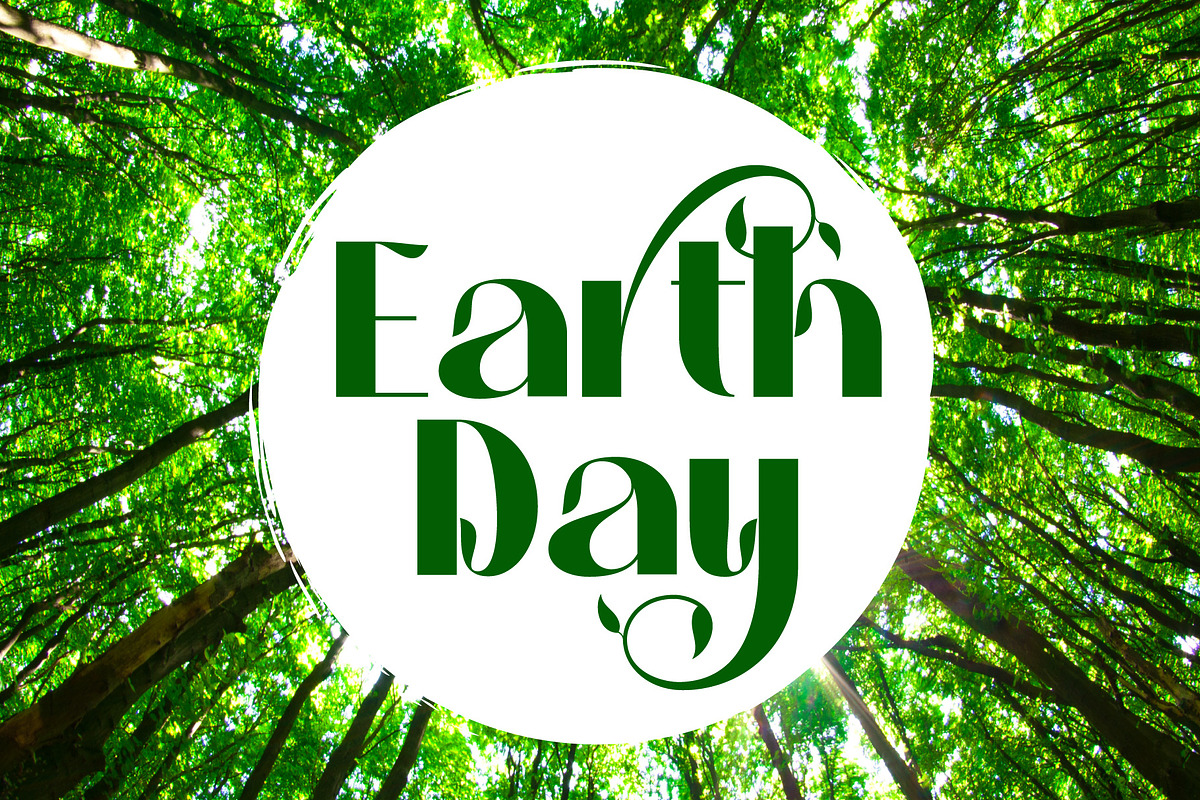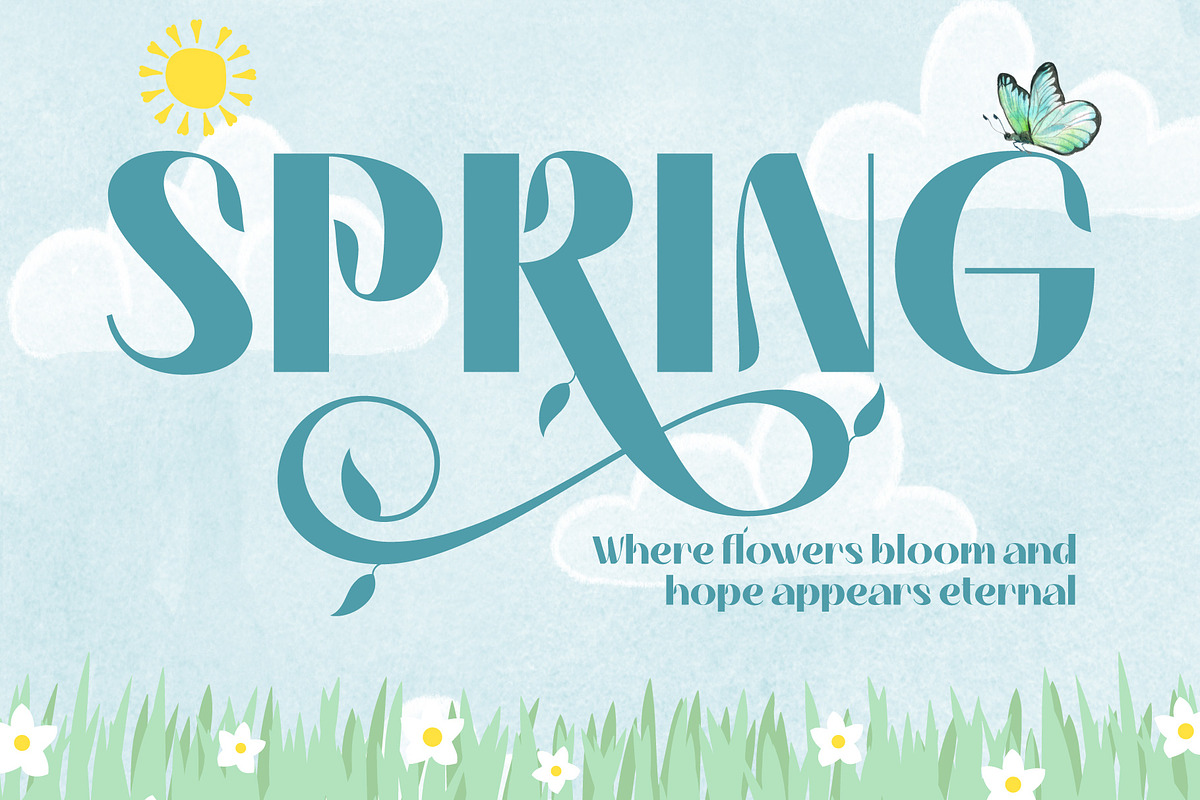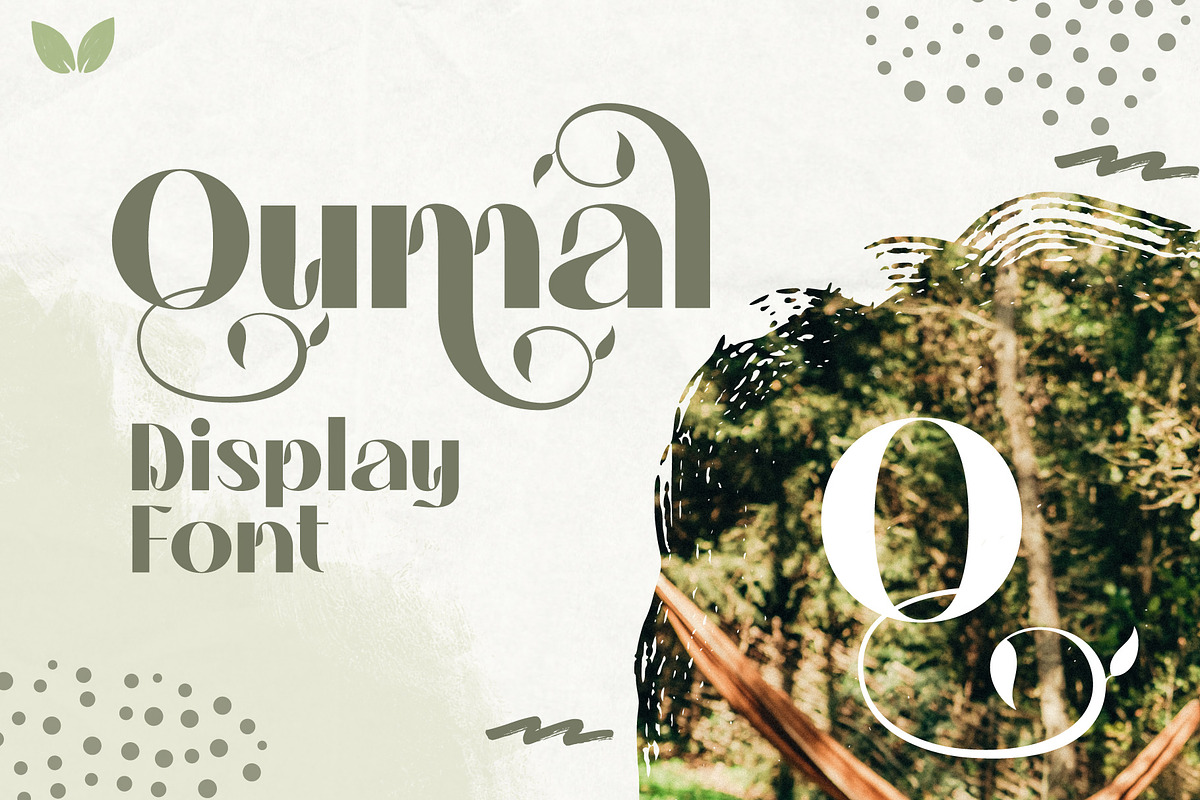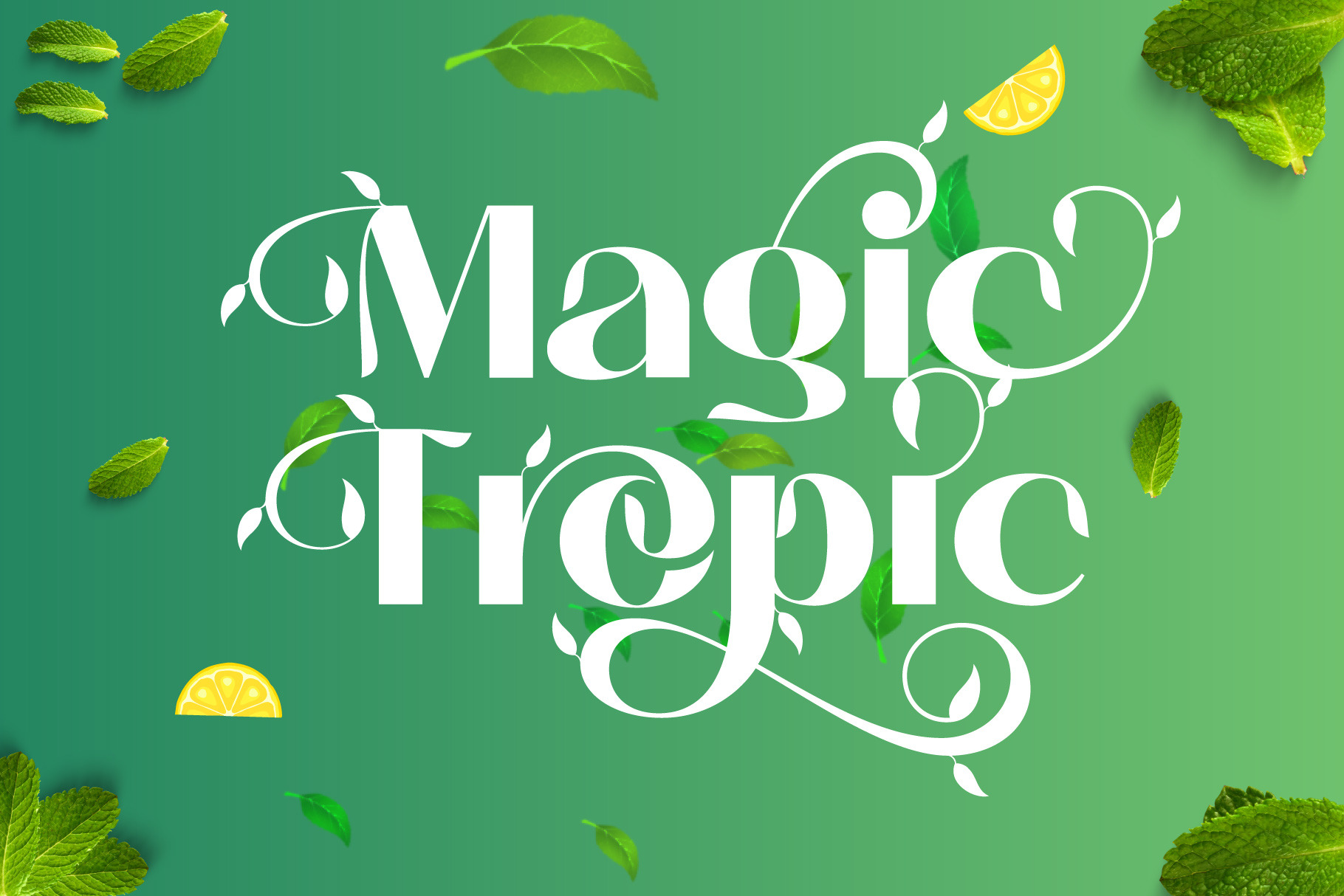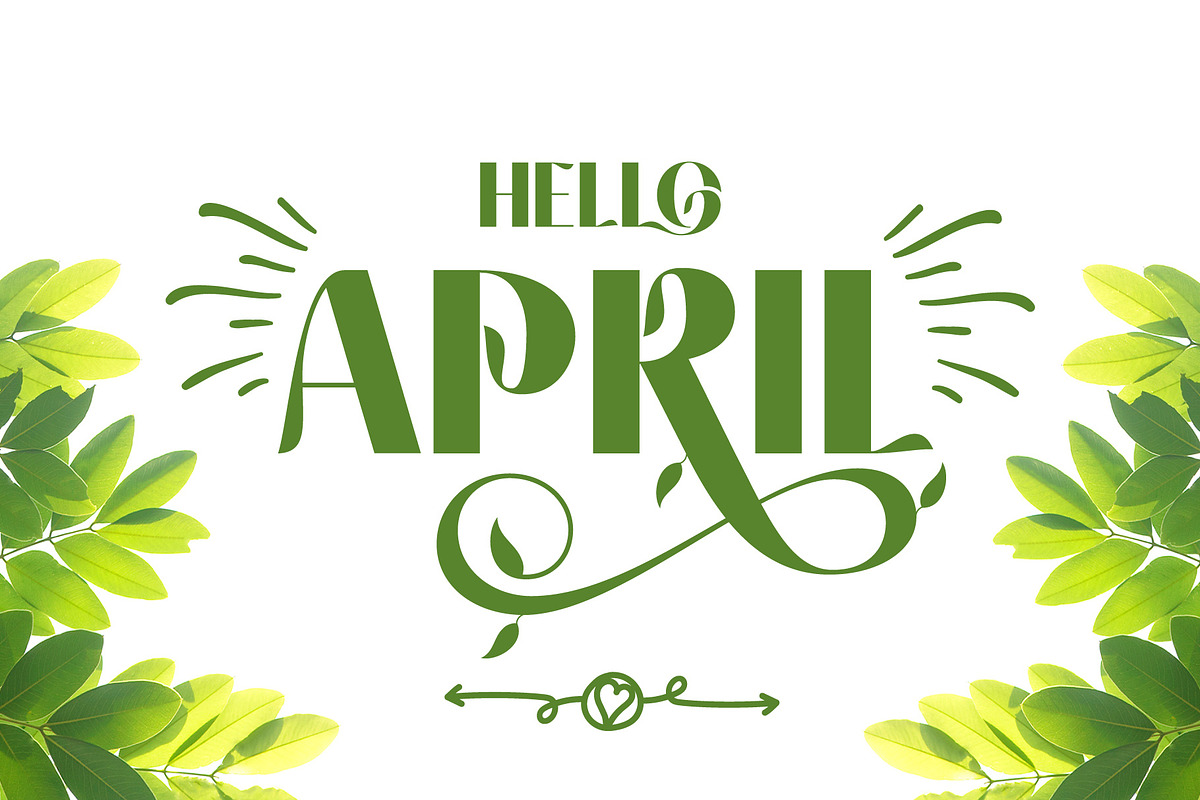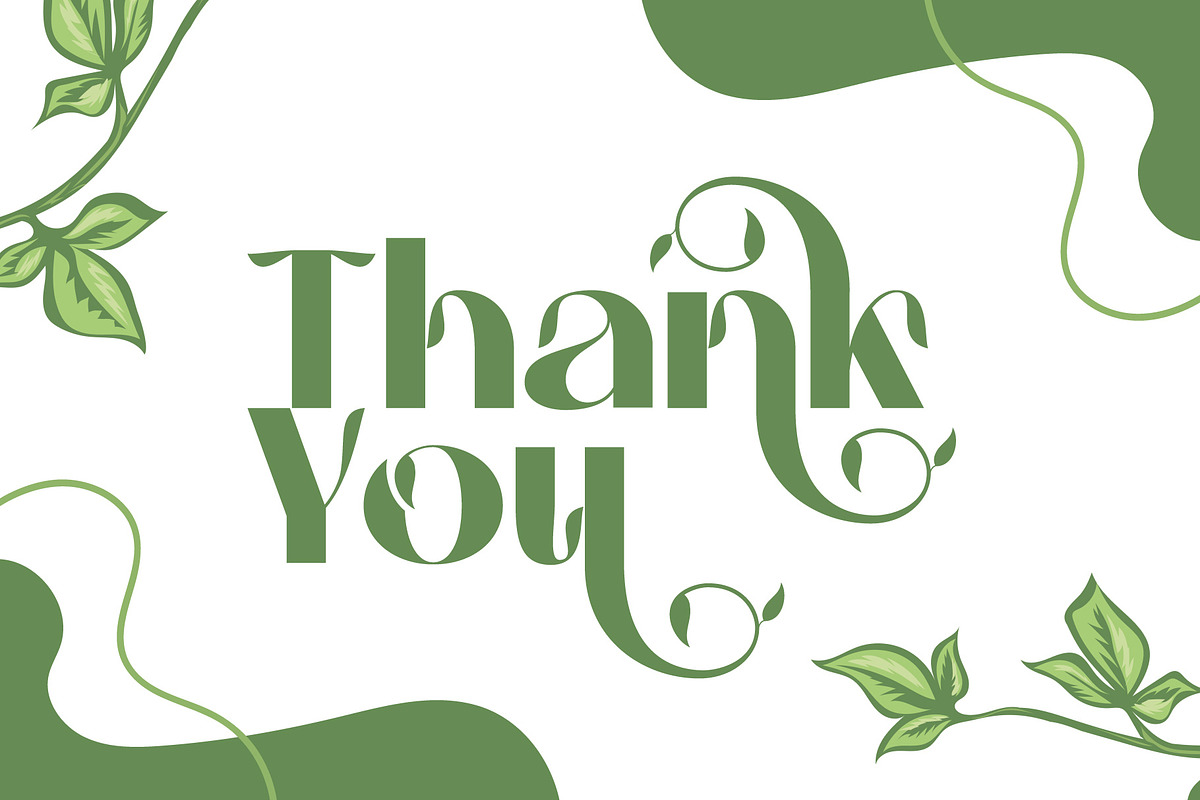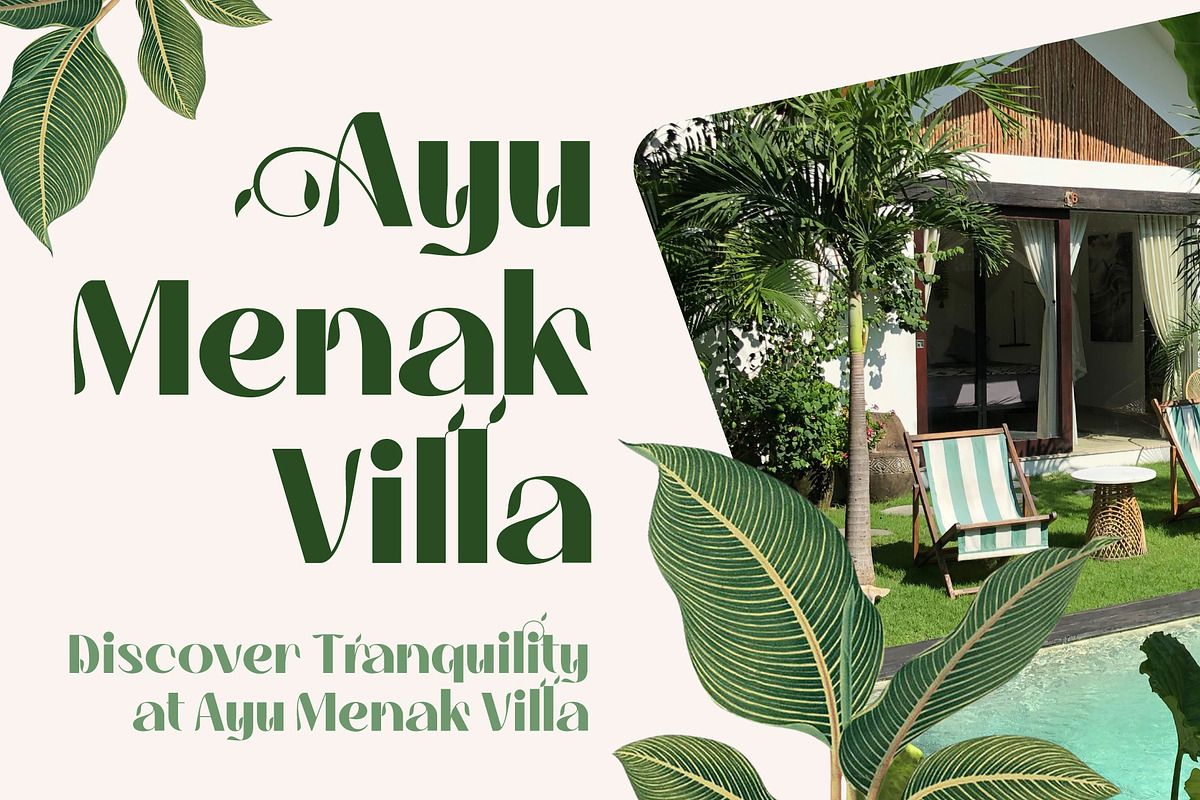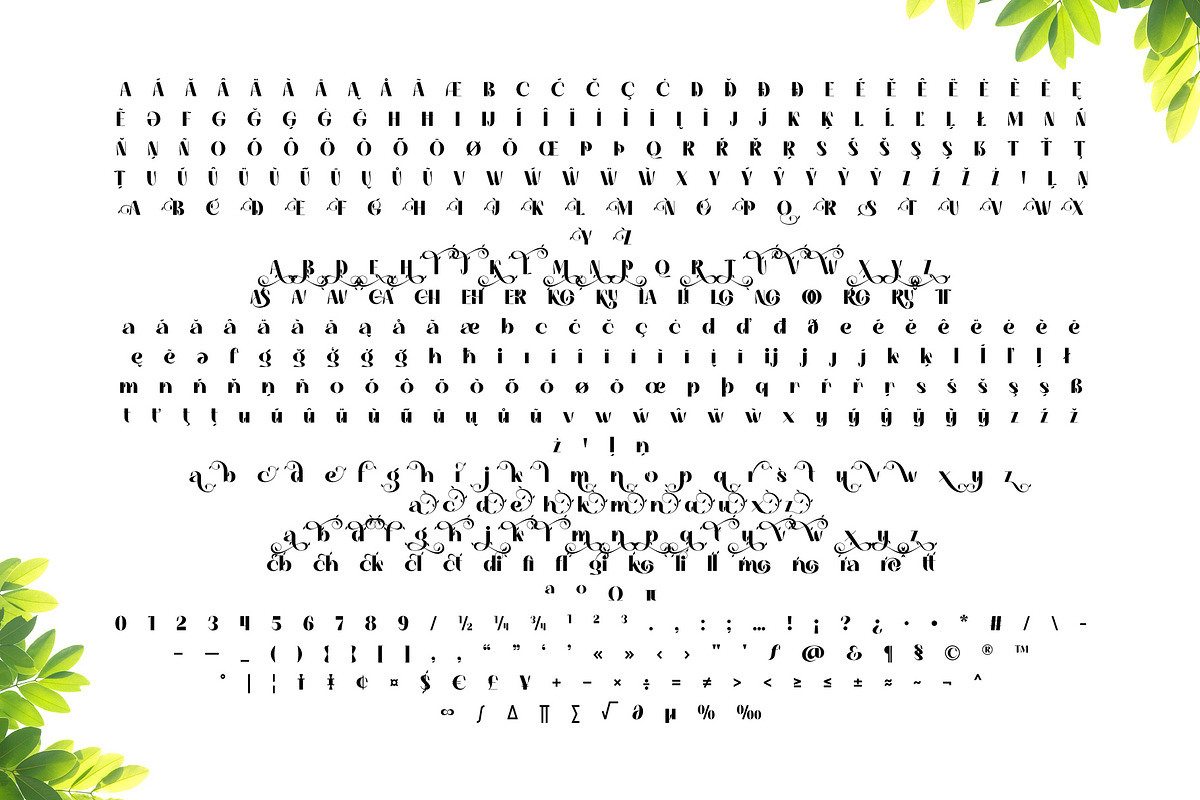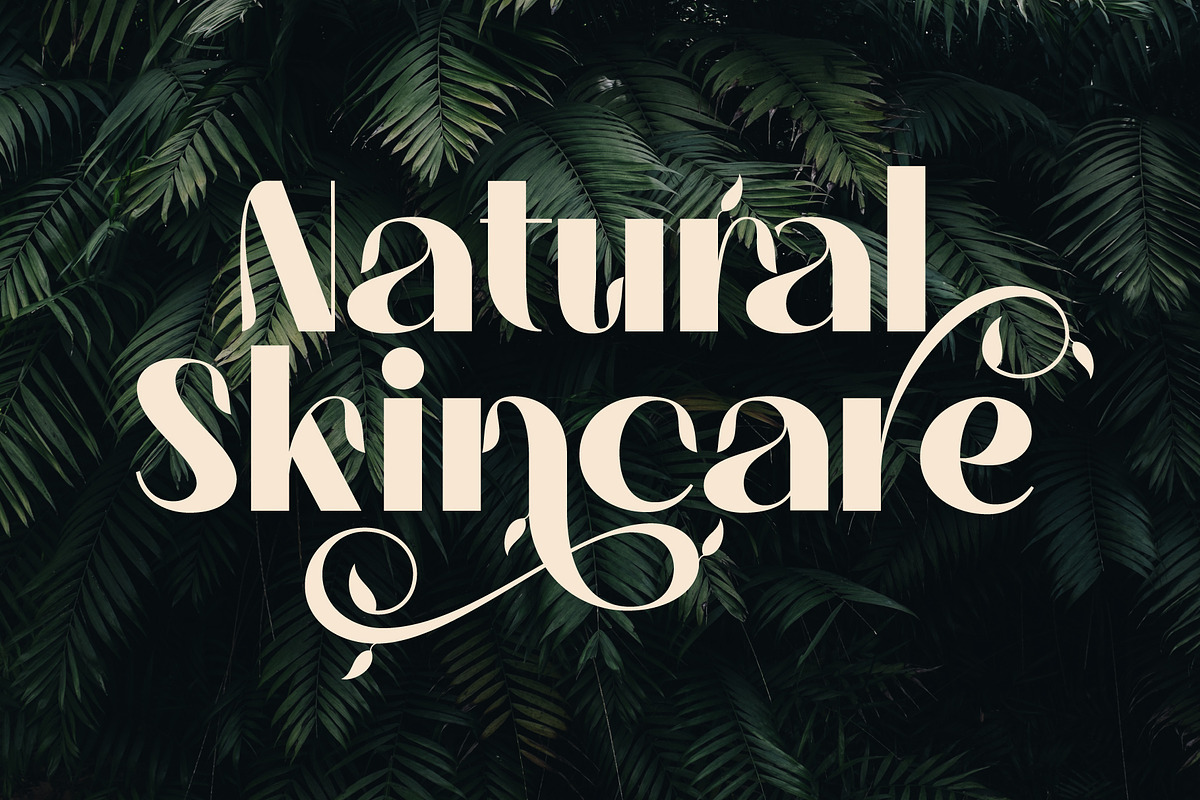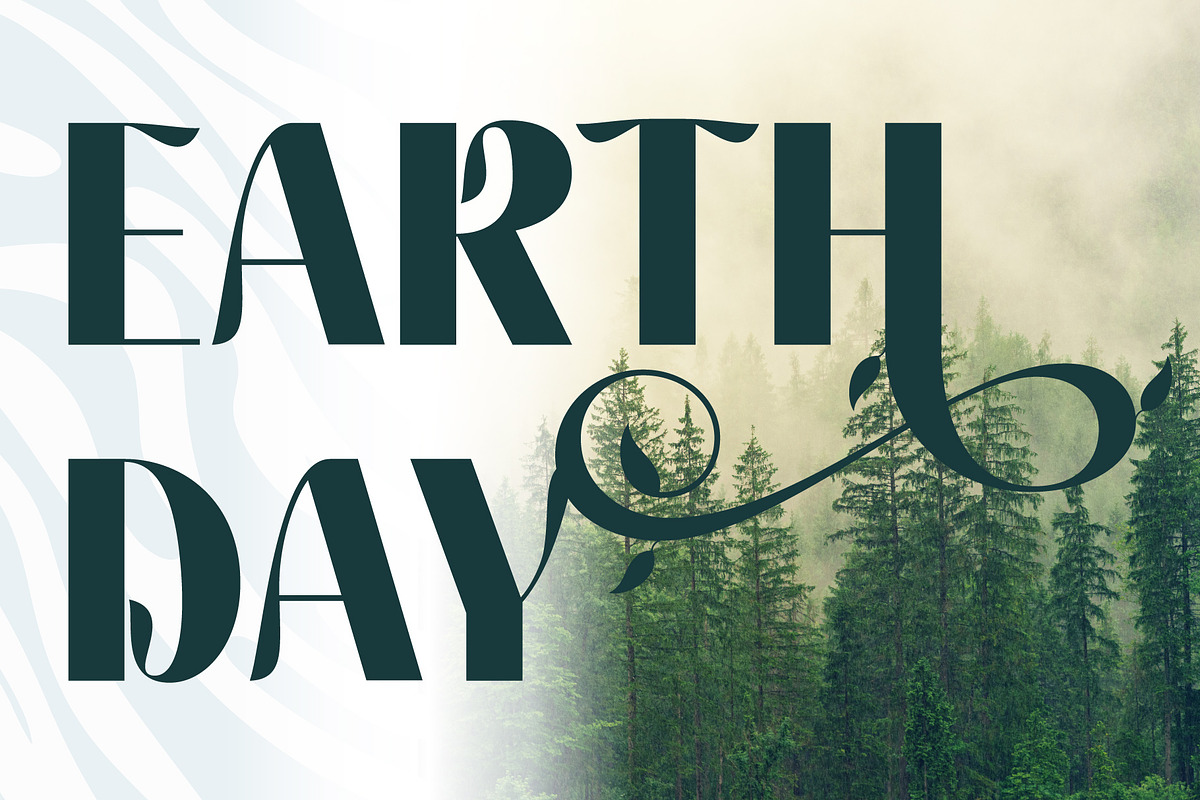
Magic Tropic Font
Magic Tropic is a unique display font inspired by the shape and beauty of tropical plants. Its elegant and artistic design brings a natural and exotic feel, making this font the perfect choice for various design projects that want to convey a fresh and natural impression.
- Feature:
- Ligature: Artistically connected letter combinations for a smoother and more aesthetic appearance.
- Swash: Decorative lines on the letters that add a touch of elegance.
- Stylistic Set: Variations in letter styles to allow for errors in design.
- Multilingual: Supports multiple languages for international use.